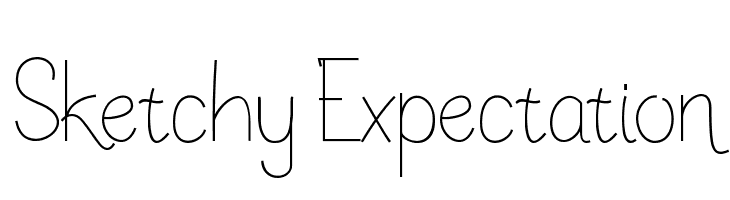
A whimsical, hand-drawn font with tall, slender characters and playful loops.
A bold, geometric font with a halftone effect, ideal for modern designs.
A dynamic, expressive script font with a handwritten style.
A bold, geometric font with a mix of solid and outlined elements.
A flowing, elegant script font with high contrast and ornate details.
A bold, italic serif font with high contrast and angular serifs.
A bold, playful font with thick, rounded strokes and a bubbly appearance.
A playful, handwritten font with smooth, rounded edges and consistent stroke width.
A bold, retro font with a hand-drawn, vintage movie poster style.
A dynamic and flowing script font with elegant cursive letterforms.